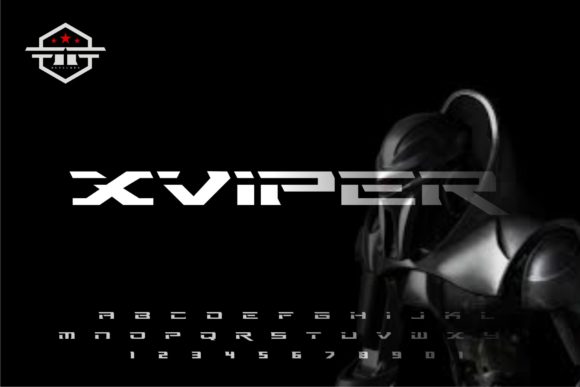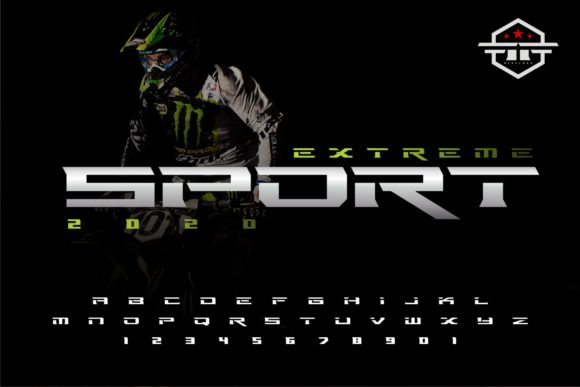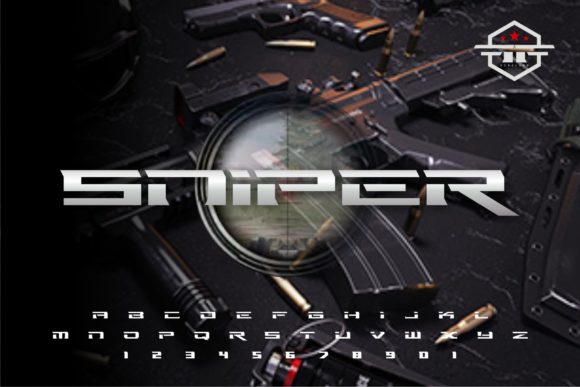
Introduction to Free Fire Font
Have you ever been in a rush to complete a project, but the right design element seems elusive? This is exactly what happened to many designers who were working on a gaming-themed creative project. They were searching for a modern and sporty font that would perfectly capture the essence of their idea, but nothing seemed to fit. That was until they stumbled upon the Free Fire Font, a game-changer in the world of design resources.
| 👤 Author | Herulogo |
This high-quality font is not just a pretty face; it’s a valuable asset for designers who are working on projects related to gaming, extreme sports, or robots. With its sleek and modern design, it’s perfect for creating eye-catching graphics, logos, and even social media posts.
Key Features of Free Fire Font
- High-quality vector font designed for various creative projects, including logos, graphics, and UI elements.
- Designed to be highly scalable, with a large character set and detailed glyphs, suitable for use in various resolutions and sizes, from small text to large headers.
- Unique, modern design aesthetic that sets it apart from other fonts, making it an excellent choice for designers seeking a distinctive look.
- Perfect for use in digital design projects, including websites, mobile apps, and video games, due to its crisp and clear appearance on high-resolution screens.
Honest Review: Free Fire Font
As a designer, I’m always on the lookout for high-quality design resources to elevate my creative projects. Recently, I stumbled upon the Free Fire Font, and I’m excited to share my honest review with you.
Here’s what I like about the Free Fire Font:
- ✨ Unique and stylish design that can add a touch of elegance to any project
- ⚠️ Limited font variations, which may not be suitable for complex design projects
- ⚠️ Not ideal for designs that require a transparent background, as the font’s design may not render well
Overall, I think the Free Fire Font is a solid addition to any designer’s toolkit. While it may not be perfect, its unique design and free download make it a worthwhile resource for creative projects. If you’re looking for a stylish font to add some flair to your design, the Free Fire Font is definitely worth checking out.
The Free Fire Font is suitable for a variety of design projects, including logos, business cards, and social media graphics. Its high-quality design and transparent background make it an excellent choice for creative professionals and hobbyists alike.